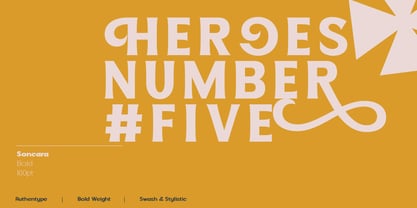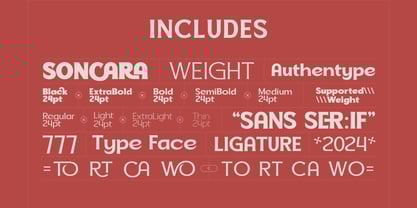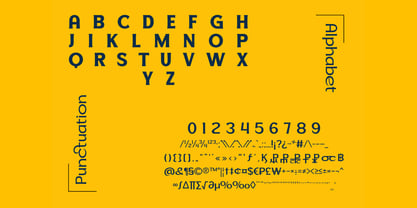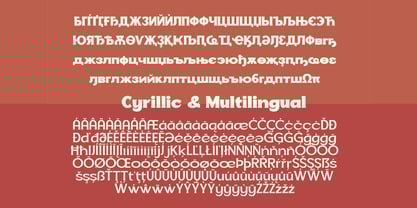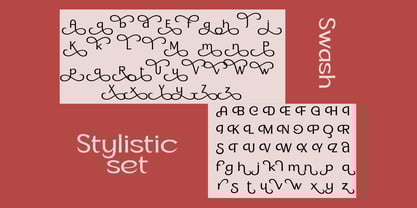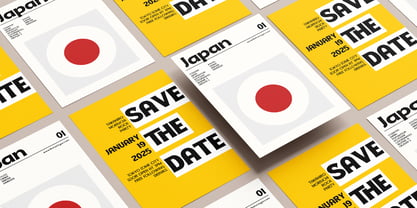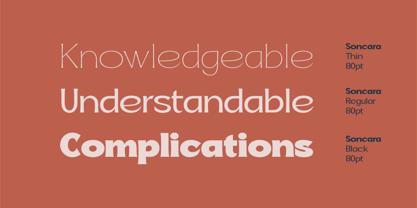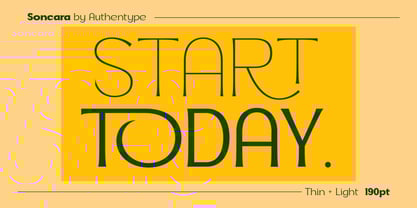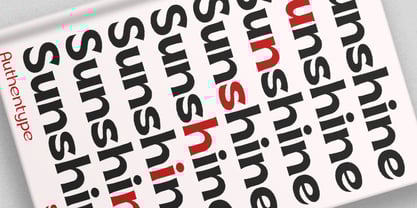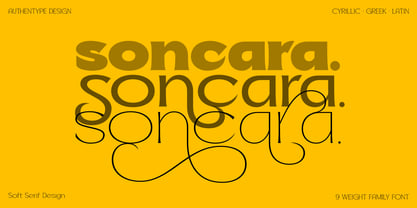
Soncara
by Authentype
The Soncara Font Family was designed by Ekayasa and published by Authentype. Soncara contains 9 styles and family package options.
Soncara Futuristic Soft Serif Font is a modern and sleek futuristic font with soft, rounded edges and a refined design aesthetic. Its unique combination of futuristic geometry and gentle curves makes it perfect for branding, headlines, posters, and tech-inspired projects. With multilingual support and versatile stylistic sets, soncara soft serif seamlessly blends innovation and elegance, elevating any creative design.
Design Function
Soncara soft serif is an excellent choice for:
• Logos: Its futuristic and sleek style makes it ideal for tech or innovative branding.
• Branding: Soncara’s clean and modern lines are perfect for establishing a professional and forward-thinking identity.
• Posters: Its bold and geometric nature catches attention in advertisements, events, or sci-fi-themed projects.
• Editorial Designs: Works well in futuristic magazines, tech articles, or gaming publications.
• Websites: Ideal for creating a high-tech or modern user interface with a soft, approachable edge.
SPECIAL FEATURES
1. Ligatures
• Includes carefully crafted ligatures for smooth connections (e.g., “ff,” “fi,” “tt,” and more), ensuring visual harmony in typography.
2. Swash
• Yes, Soncara features stylized swashes on select letters, adding a touch of style to standout headers or logos.
3. Stylistic Sets
• Offers alternative letterforms and creative variations for select characters, providing flexibility for unique and artistic designs.
4. Multilingual Support
• Fully supports non-Latin characters and a variety of scripts, including:
• Cyrillic: Covers a wide range of Eastern European and Slavic languages.
• Greek: Includes complete character sets for both classical and modern Greek styles.
• Latin with diacritics: Covers European languages with accented letters.
• This extensive language support, combined with stylistic versatility, makes Soncara perfect for global and diverse design projects.